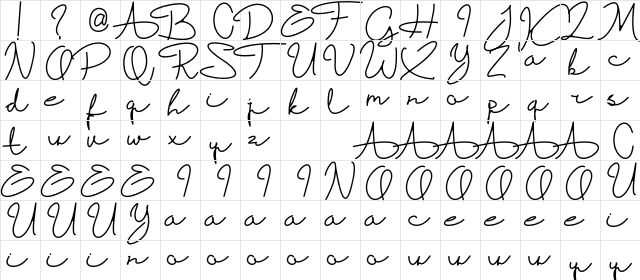
Firpi Lephril Regular
Design Context for Firpi Lephril Typeface
Firpi Lephril is a composed and adaptable typeface that performs quietly and consistently across a wide range of design contexts.